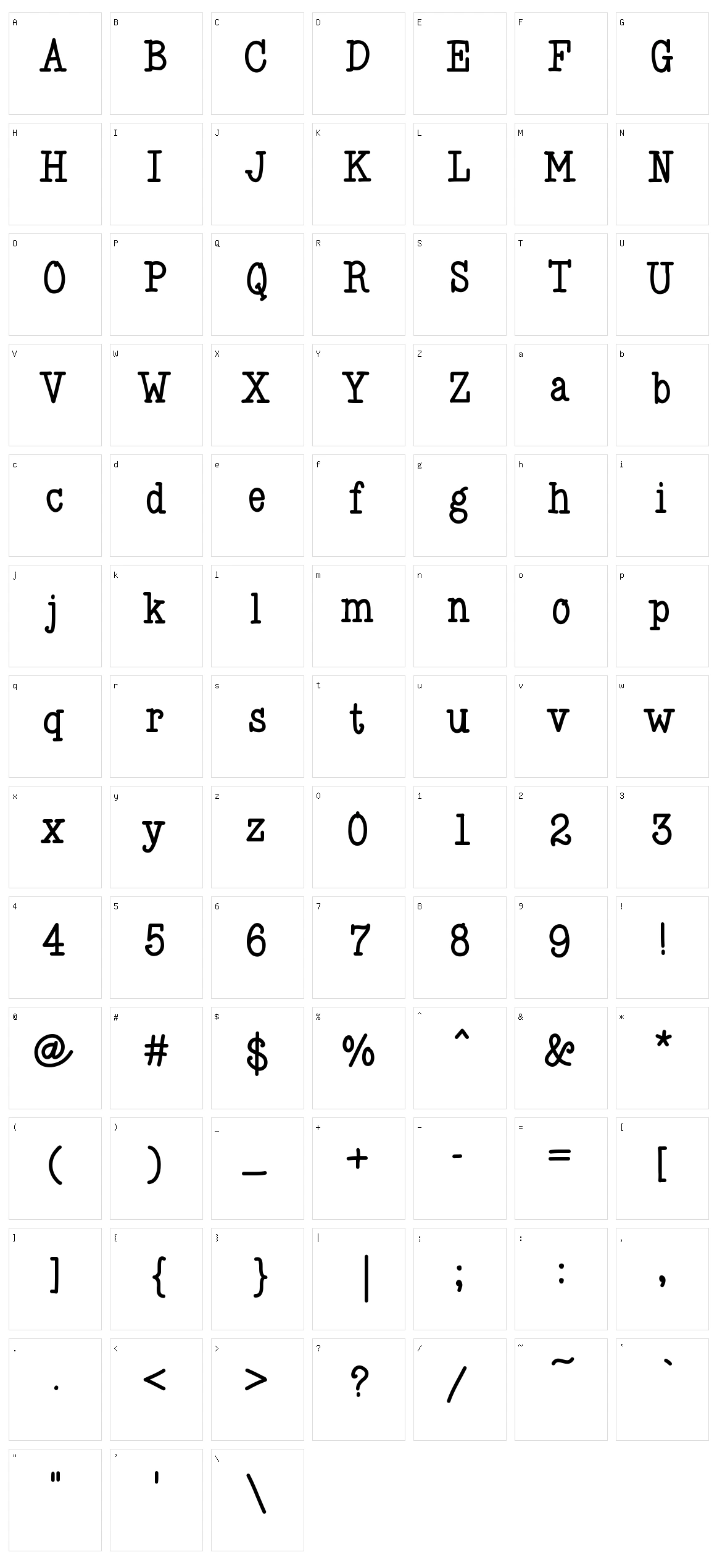
The free font KL Gabe is carefully designed by Kitaleigh Boutique, showcasing a thoughtful balance of creativity and usability and falls under the Typewriter font style. When you download the ZIP file, it contains only 16.6 KB of font files, making it lightweight and quick to download. Please review the license details below to understand permitted usage and distribution rights. If license information is not available, we recommend using this font for personal projects only or contacting the author directly for commercial usage permissions.